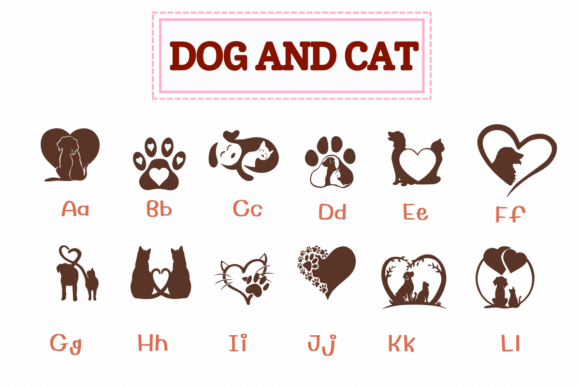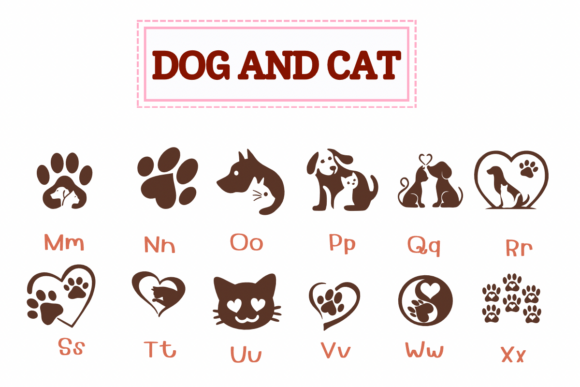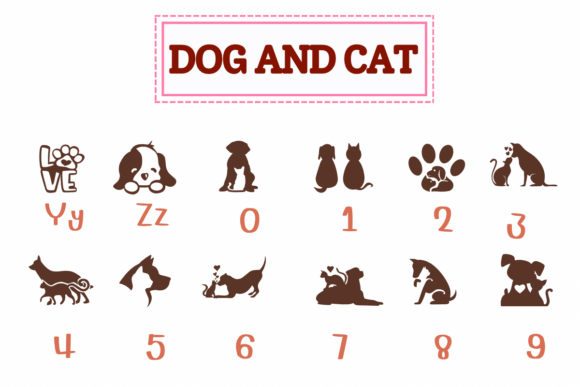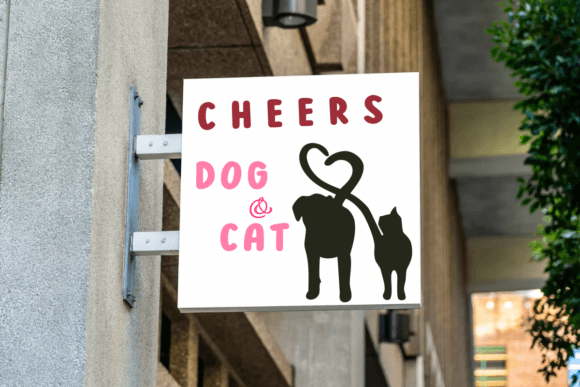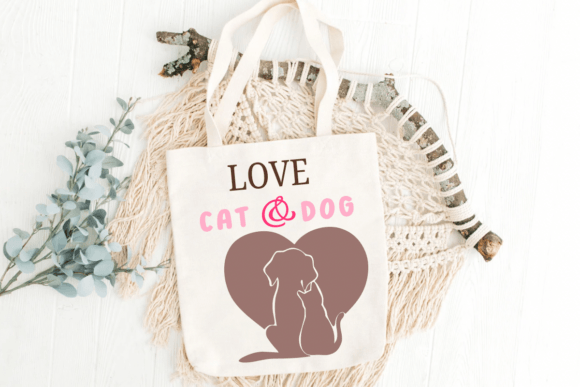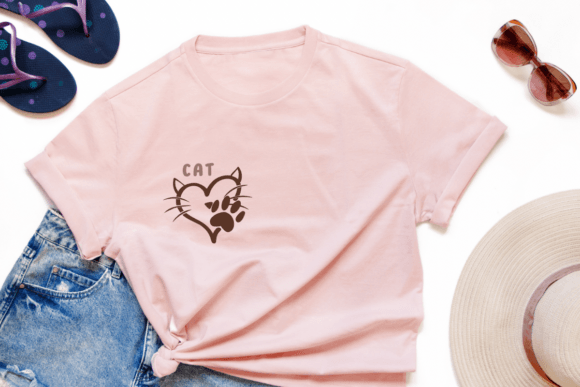
Get Ready to Unleash Your Creativity with Dog and Cat Font
You know that feeling when you’re brainstorming ideas for a creative project and suddenly a spark of inspiration hits you? It’s like a rush of excitement and energy that makes you want to run with the idea and see where it takes you. For many designers, that moment comes when they’re searching for the perfect font to bring their vision to life.
Enter the Dog and Cat Font, a delightful dingbats font that’s sure to bring a smile to your face. This charming font is designed to add a playful touch to your projects, from wedding invitations to DIY crafts and decorations. With its cute theme and endless possibilities, the Dog and Cat Font is a valuable tool for designers looking to add a personal and whimsical touch to their work.
Dog and Cat Font Key Features
- Font Family: Dog and Cat Font offers a unique set of characters featuring illustrations of dogs and cats, making it a great choice for designers looking to add a playful touch to their projects.
Designer Review: Dog and Cat Font
Overall, I think the “Dog and Cat Font” is a fun and quirky addition to any design project. ✨ The bold, playful strokes of the font make it perfect for capturing the personalities of our furry friends. I appreciate how the font designers have balanced whimsy with readability, ensuring that the text remains clear even in larger sizes.
- ✨ Unique, hand-drawn style that’s perfect for pet-related projects
- ✨ Clear and legible, even in larger sizes
- ✨ Great for creating a lighthearted, playful atmosphere
- ⚠️ Limited to pet-related projects, which may limit its versatility
- ⚠️ Some characters may be difficult to read or recognize, especially in smaller sizes
- ⚠️ Not ideal for formal or professional projects where a more traditional font is preferred
Overall, I think the “Dog and Cat Font” is a great choice for pet owners, animal lovers, and designers looking to add some personality to their projects. While it may not be suitable for every project, it’s a fun and engaging font that’s sure to bring a smile to users’ faces.
The “Dog and Cat Font” is perfect for:
- Animal-themed designs.
- Children’s party invitations.
- Custom pet tags.